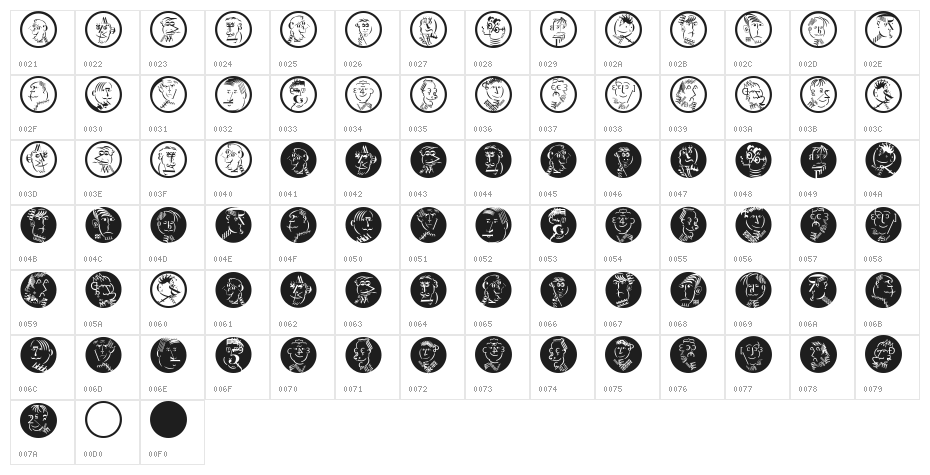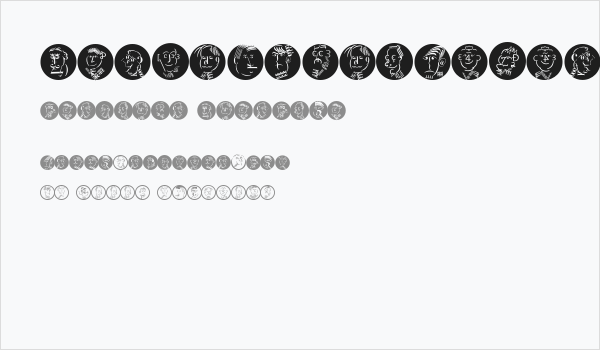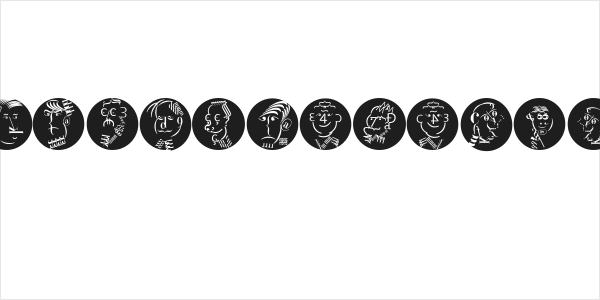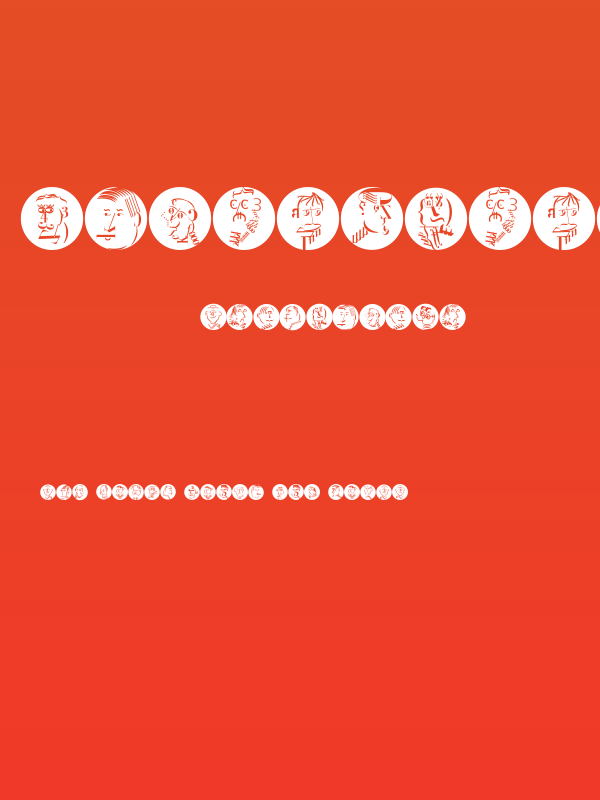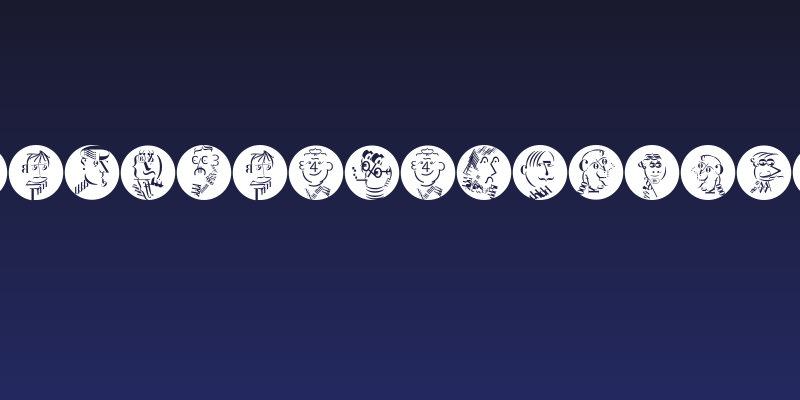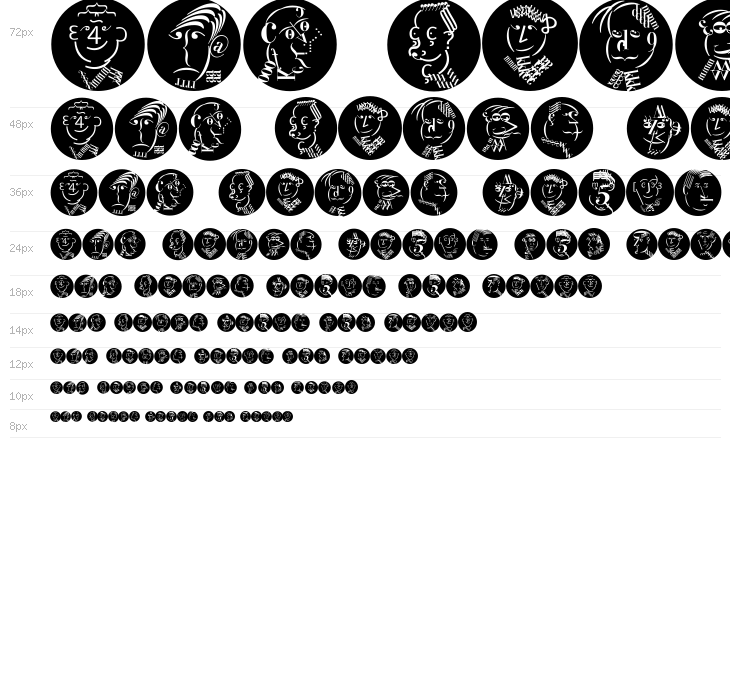
DrawingWithTypefaces07 Font
DrawingWithTypefaces07 Description
A highly decorative and artistic typeface where each character is represented by a unique hand-drawn face or figure inside a black circular background, using white sketch-like lines. The style is playful, expressive, and abstract, with significant variation in each glyph's design.
| Overall Style | Decorative, Artistic, Playful |
| Use Case | Logos, Posters, Illustrative Headlines, Artistic Projects |
| Proposed Projects | ChildrenΓ’β¬β’s books, creative branding, art posters, album covers, editorial illustrations, event invitations. |